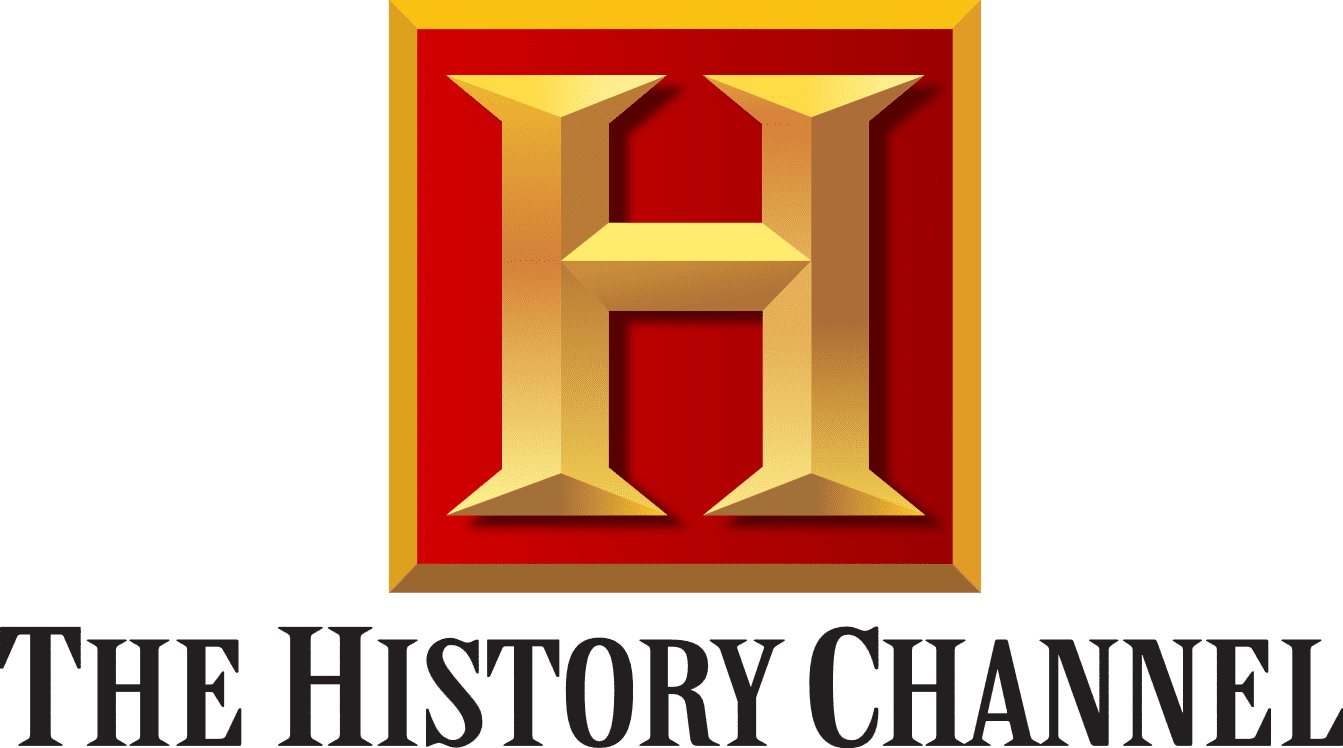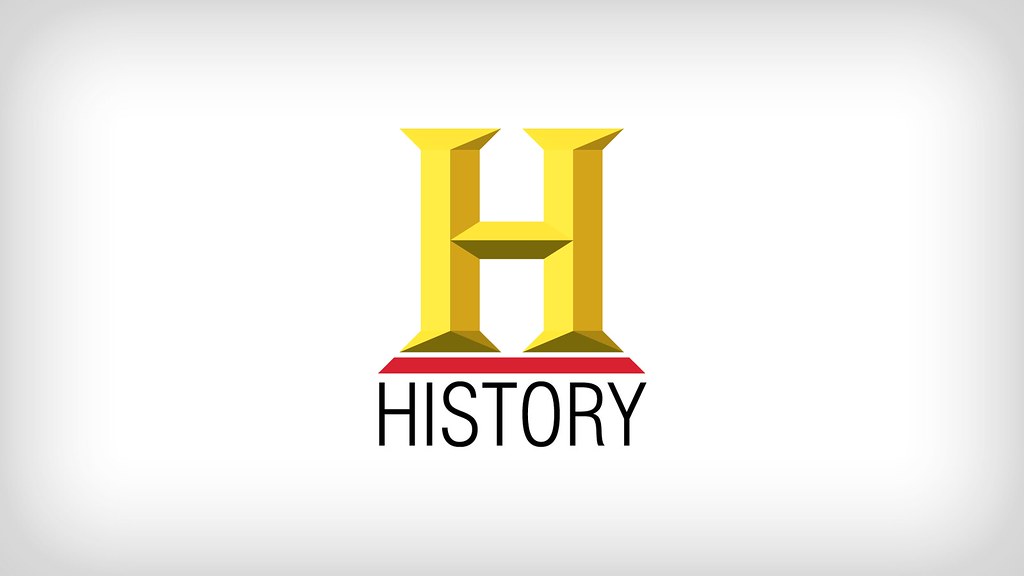
History Channel Logo Font . It further gave the logo a holistic touch, enhancing. Beneath the box, the history channel was written in bold using masculine fonts. This logo image consists only of simple geometric shapes or text. Depending on the year the emblem was introduced, the name of the tv channel is set in franklin gothic bold or. Each genre used unique imagery and a custom. Several types of typefaces have been used in the history logo. It does not meet the threshold of originality needed for copyright. The verbal sign of 2021 is made in the centra no. It does not meet the threshold of originality needed for copyright. It belongs to a series of geometric grotesques created by joshua. This logo image consists only of simple geometric shapes or text. The logo, typography and visceral content of history was wrapped into an immersive broadcast branding packaging. 2 bold font, which is based on the gill sans and johnston styles.
This logo image consists only of simple geometric shapes or text. Depending on the year the emblem was introduced, the name of the tv channel is set in franklin gothic bold or. Each genre used unique imagery and a custom. Several types of typefaces have been used in the history logo. It belongs to a series of geometric grotesques created by joshua. It does not meet the threshold of originality needed for copyright. 2 bold font, which is based on the gill sans and johnston styles. Beneath the box, the history channel was written in bold using masculine fonts. The logo, typography and visceral content of history was wrapped into an immersive broadcast branding packaging. This logo image consists only of simple geometric shapes or text.
History Channel Logo Font It belongs to a series of geometric grotesques created by joshua. It does not meet the threshold of originality needed for copyright. Beneath the box, the history channel was written in bold using masculine fonts. It further gave the logo a holistic touch, enhancing. 2 bold font, which is based on the gill sans and johnston styles. Several types of typefaces have been used in the history logo. This logo image consists only of simple geometric shapes or text. Each genre used unique imagery and a custom. The logo, typography and visceral content of history was wrapped into an immersive broadcast branding packaging. This logo image consists only of simple geometric shapes or text. It does not meet the threshold of originality needed for copyright. Depending on the year the emblem was introduced, the name of the tv channel is set in franklin gothic bold or. The verbal sign of 2021 is made in the centra no. It belongs to a series of geometric grotesques created by joshua.
history channel logo redesign History Channel Logo Font The verbal sign of 2021 is made in the centra no. Beneath the box, the history channel was written in bold using masculine fonts. It belongs to a series of geometric grotesques created by joshua. 2 bold font, which is based on the gill sans and johnston styles. Several types of typefaces have been used in the history logo. It. History Channel Logo Font.
History Channel’s new logo connects the past with the future The Brand Inquirer / Worldwide History Channel Logo Font It does not meet the threshold of originality needed for copyright. The logo, typography and visceral content of history was wrapped into an immersive broadcast branding packaging. Beneath the box, the history channel was written in bold using masculine fonts. This logo image consists only of simple geometric shapes or text. It further gave the logo a holistic touch, enhancing.. History Channel Logo Font.
Transparent History Channel Logo History Channel Logo, Symbol, Text, Stencil HD PNG Download History Channel Logo Font Beneath the box, the history channel was written in bold using masculine fonts. It belongs to a series of geometric grotesques created by joshua. This logo image consists only of simple geometric shapes or text. 2 bold font, which is based on the gill sans and johnston styles. Each genre used unique imagery and a custom. It further gave the. History Channel Logo Font.
FileThe History Channel HD logo.svg Logopedia FANDOM powered by Wikia History Channel Logo Font 2 bold font, which is based on the gill sans and johnston styles. The logo, typography and visceral content of history was wrapped into an immersive broadcast branding packaging. Each genre used unique imagery and a custom. This logo image consists only of simple geometric shapes or text. This logo image consists only of simple geometric shapes or text. It. History Channel Logo Font.
History Channel Logo Font Unbeliefe Facts History Channel Logo Font It further gave the logo a holistic touch, enhancing. Beneath the box, the history channel was written in bold using masculine fonts. The verbal sign of 2021 is made in the centra no. It belongs to a series of geometric grotesques created by joshua. The logo, typography and visceral content of history was wrapped into an immersive broadcast branding packaging.. History Channel Logo Font.
The History Channel Logo Vector (.Ai .PNG .SVG .EPS Free Download) History Channel Logo Font 2 bold font, which is based on the gill sans and johnston styles. Beneath the box, the history channel was written in bold using masculine fonts. This logo image consists only of simple geometric shapes or text. The verbal sign of 2021 is made in the centra no. Depending on the year the emblem was introduced, the name of the. History Channel Logo Font.
History Channel Logo Font Unbeliefe Facts History Channel Logo Font Beneath the box, the history channel was written in bold using masculine fonts. This logo image consists only of simple geometric shapes or text. It does not meet the threshold of originality needed for copyright. It further gave the logo a holistic touch, enhancing. It belongs to a series of geometric grotesques created by joshua. The verbal sign of 2021. History Channel Logo Font.